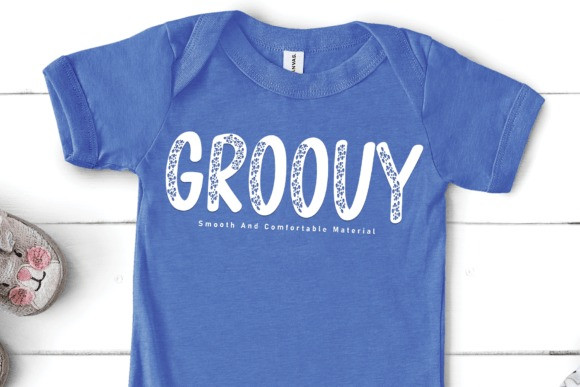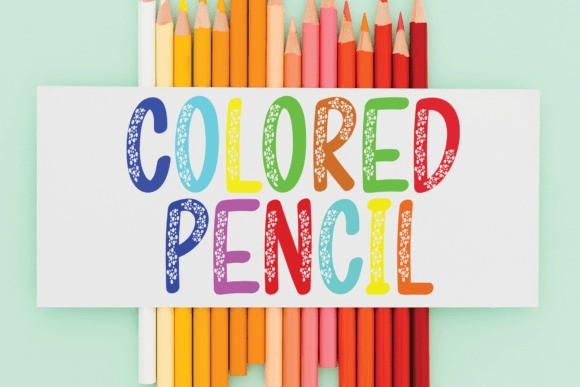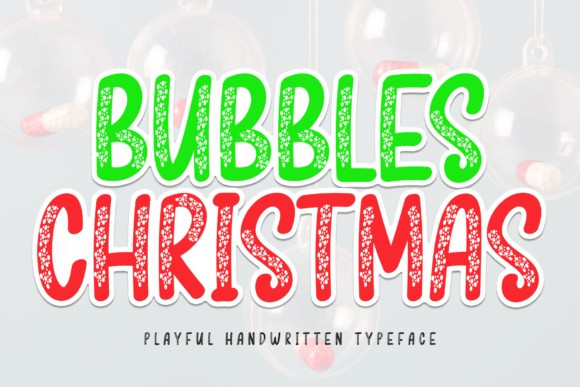
Bubbles Christmas Font
Bubbles Christmas Font is a sweet and friendly handwritten display font. Cute and fun, this font is ideal for writing wedding invitations, cards, or any other design that might need a fun touch!